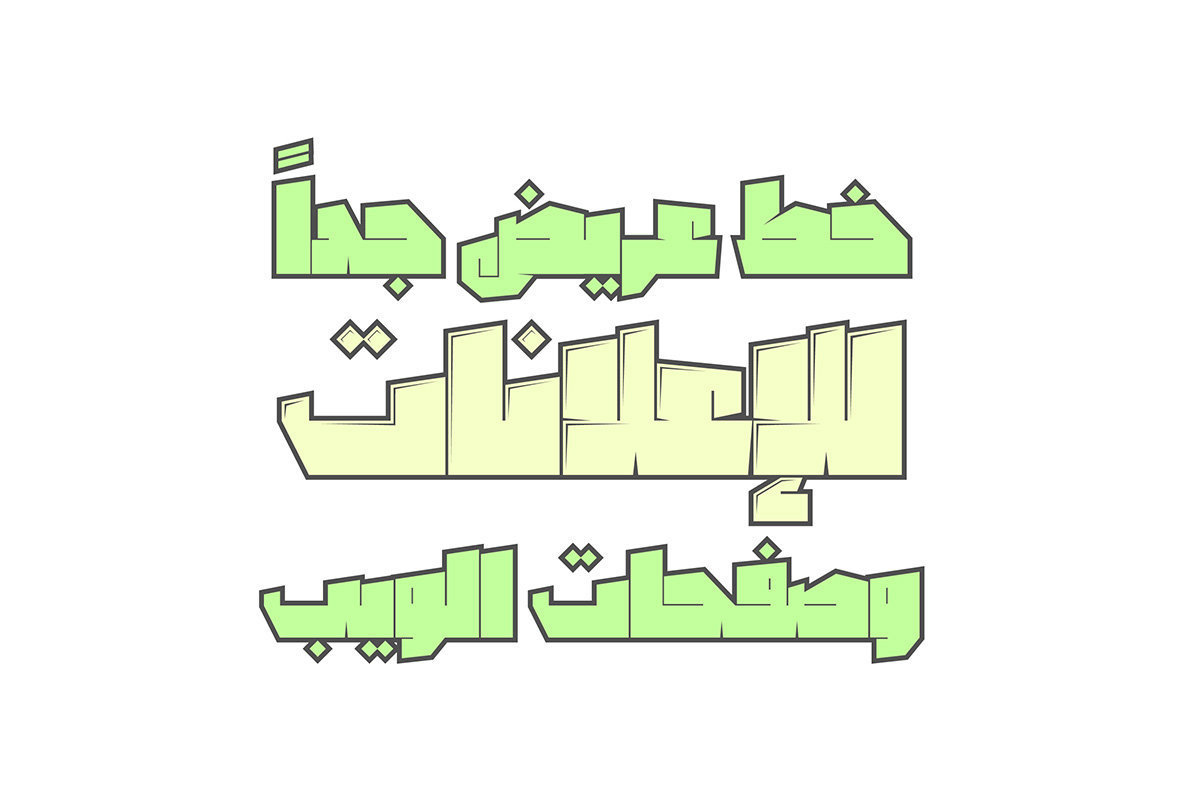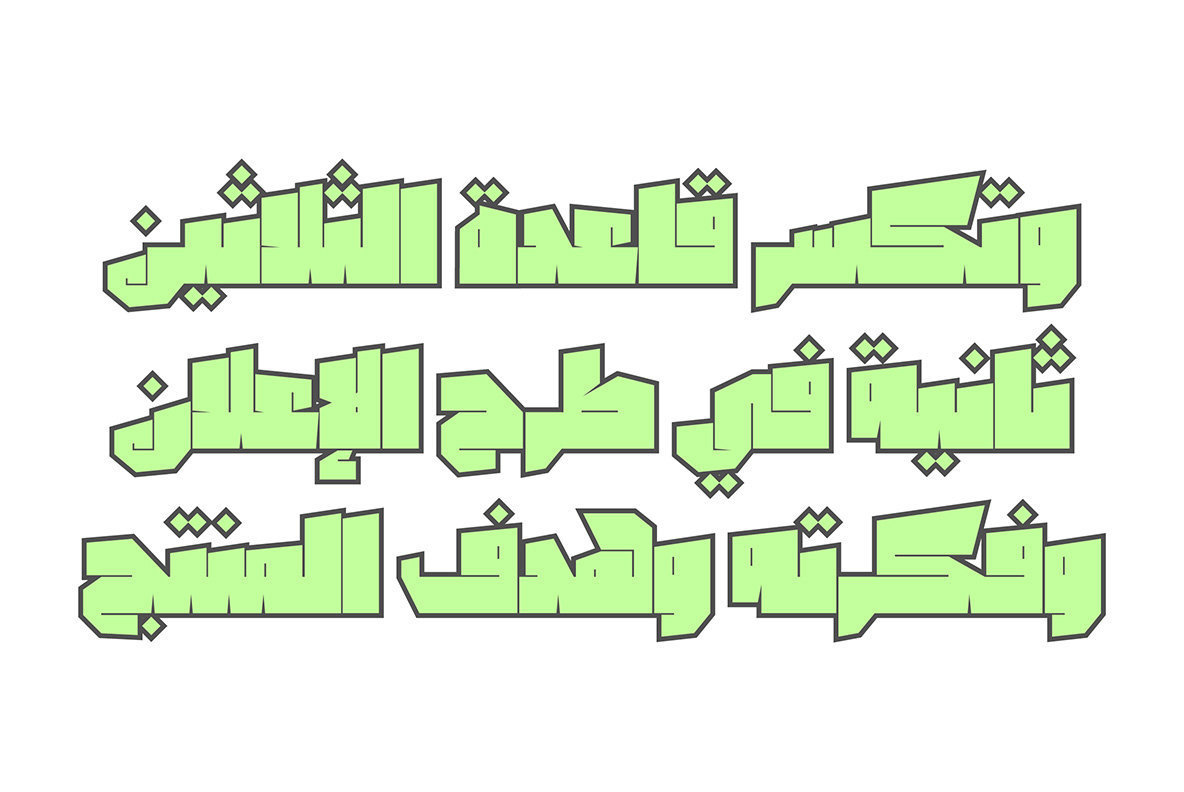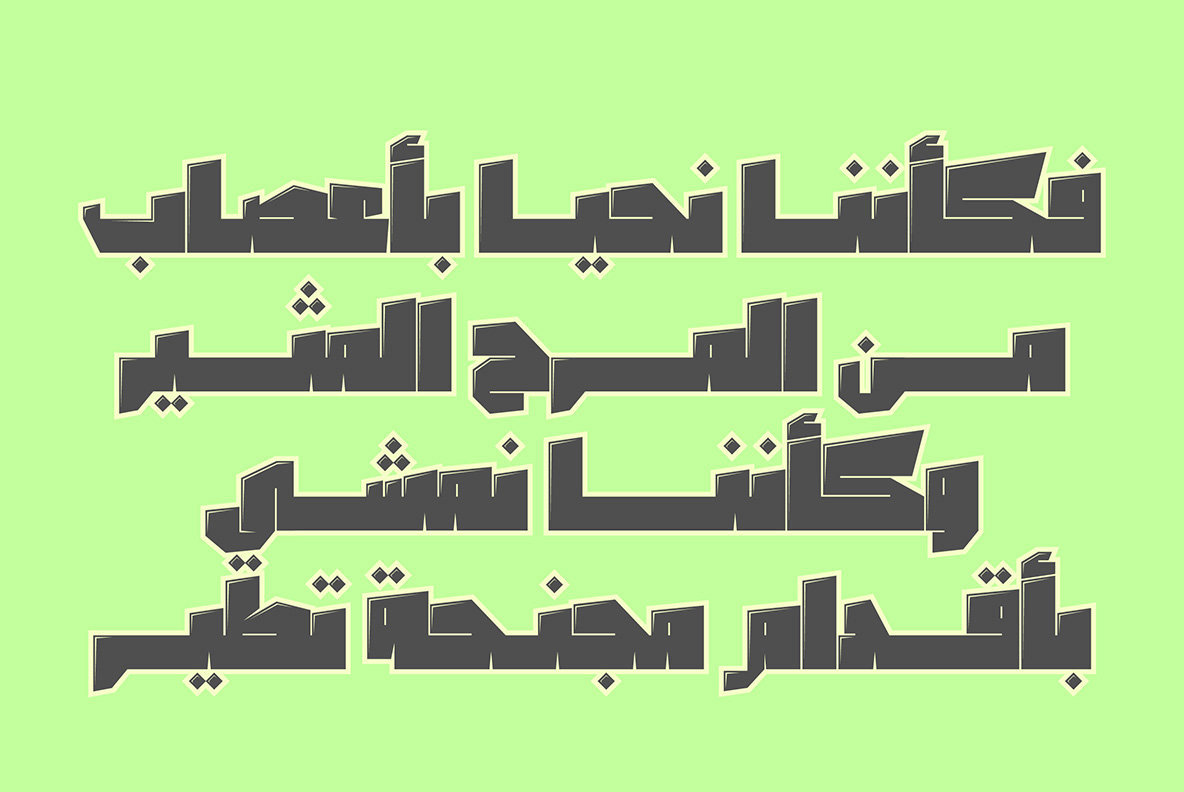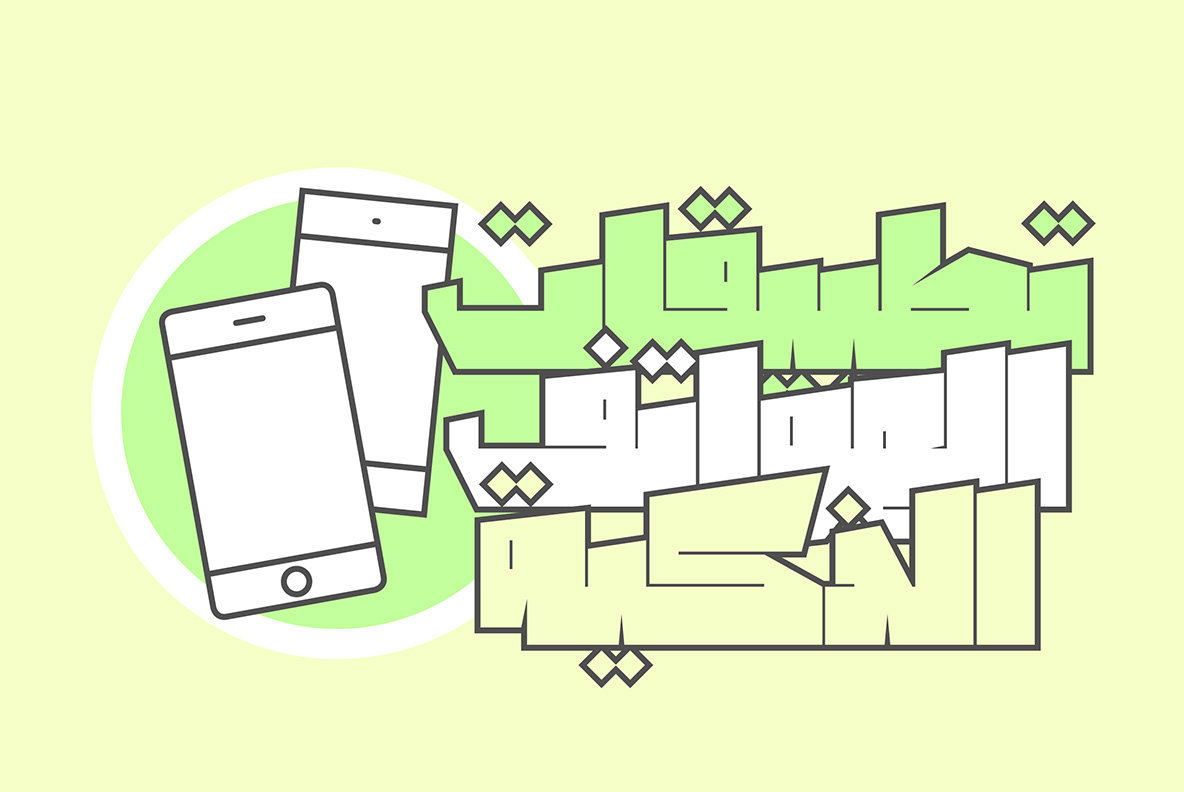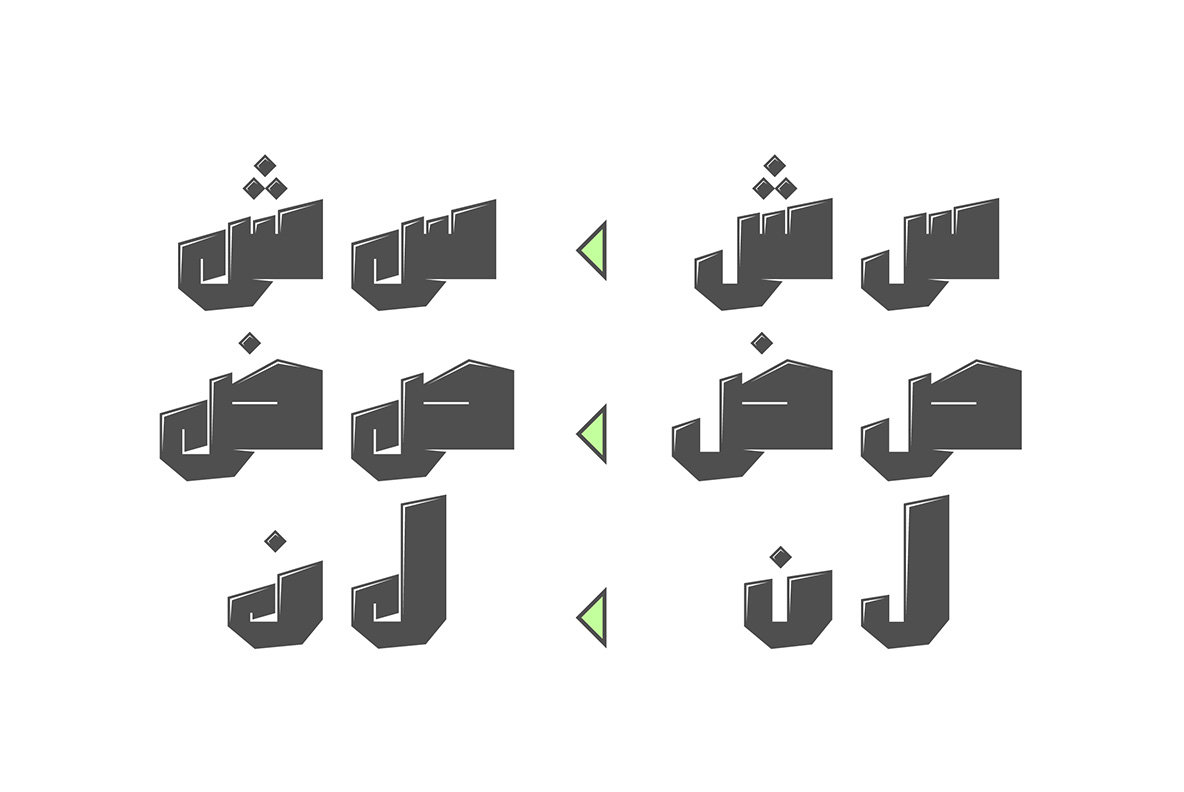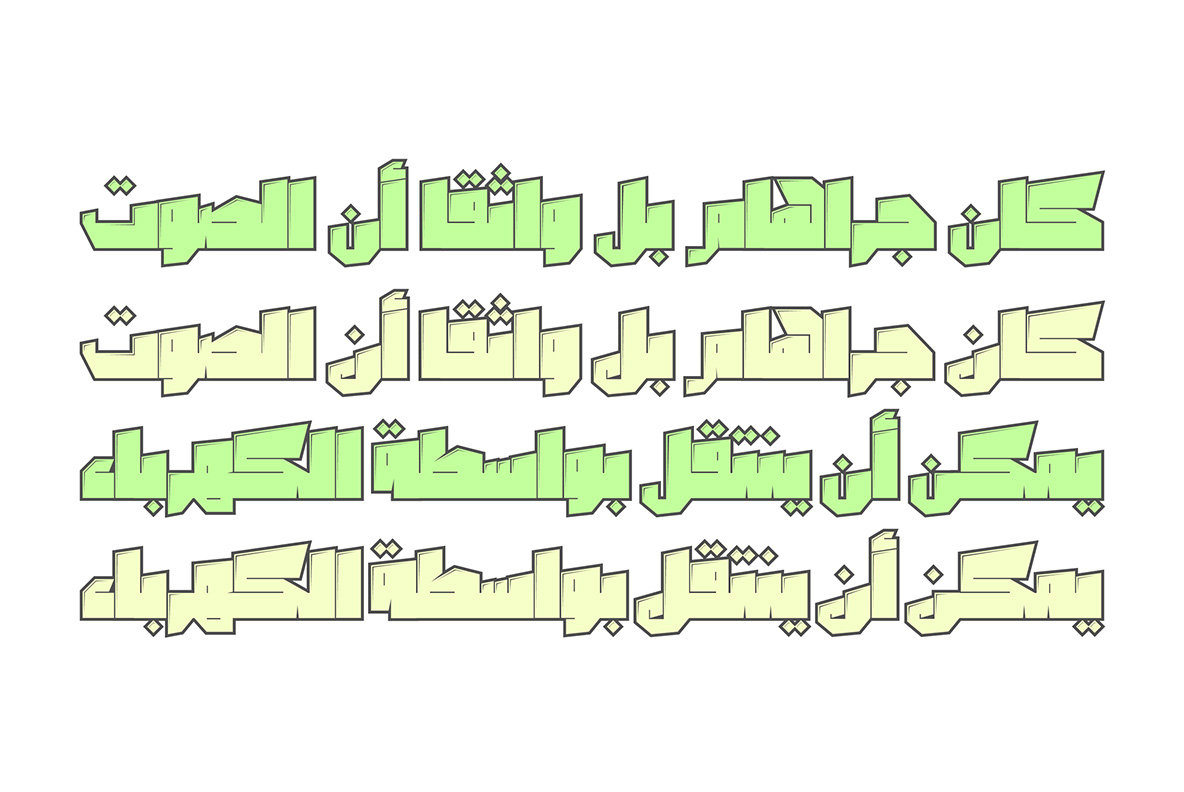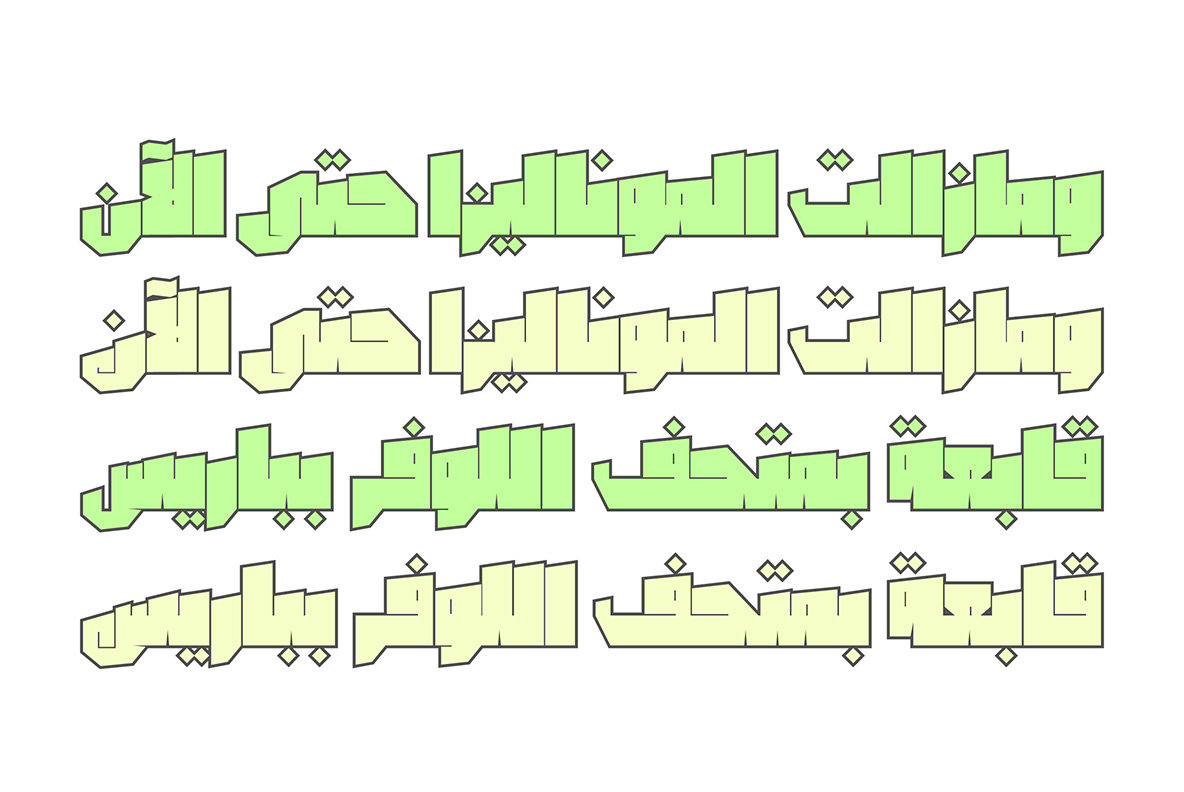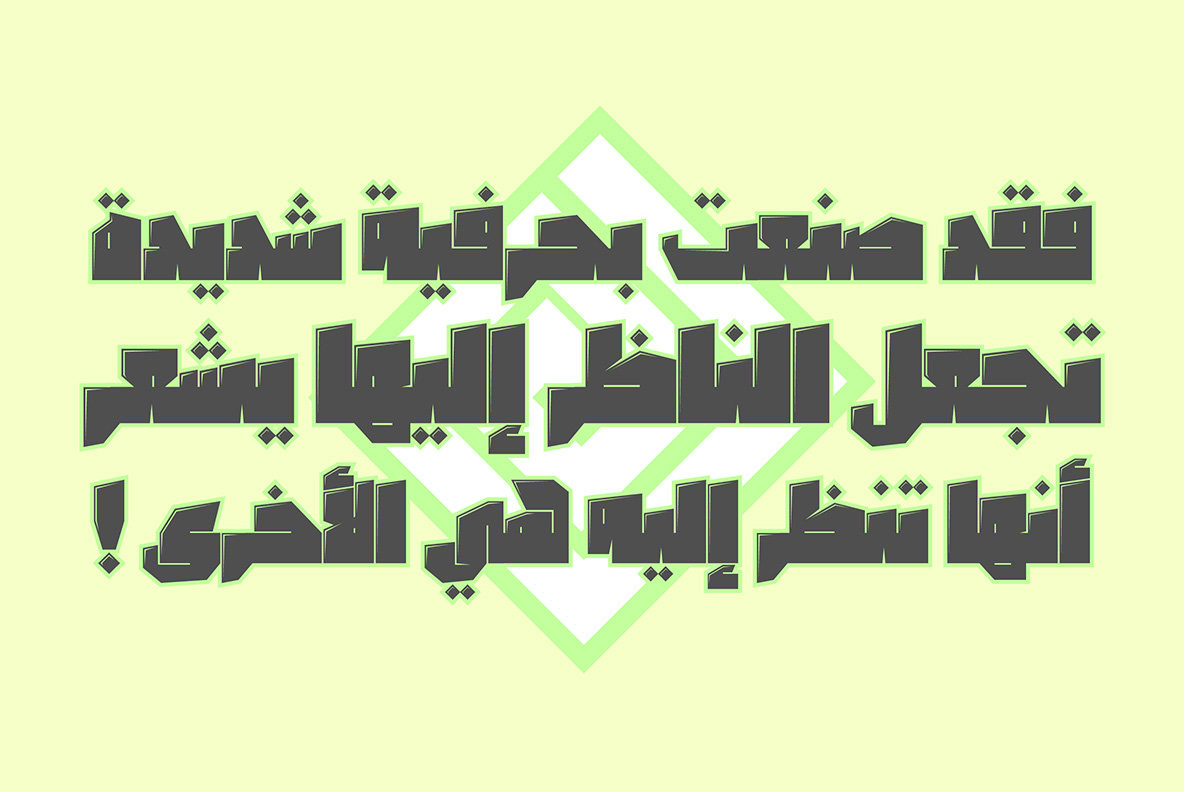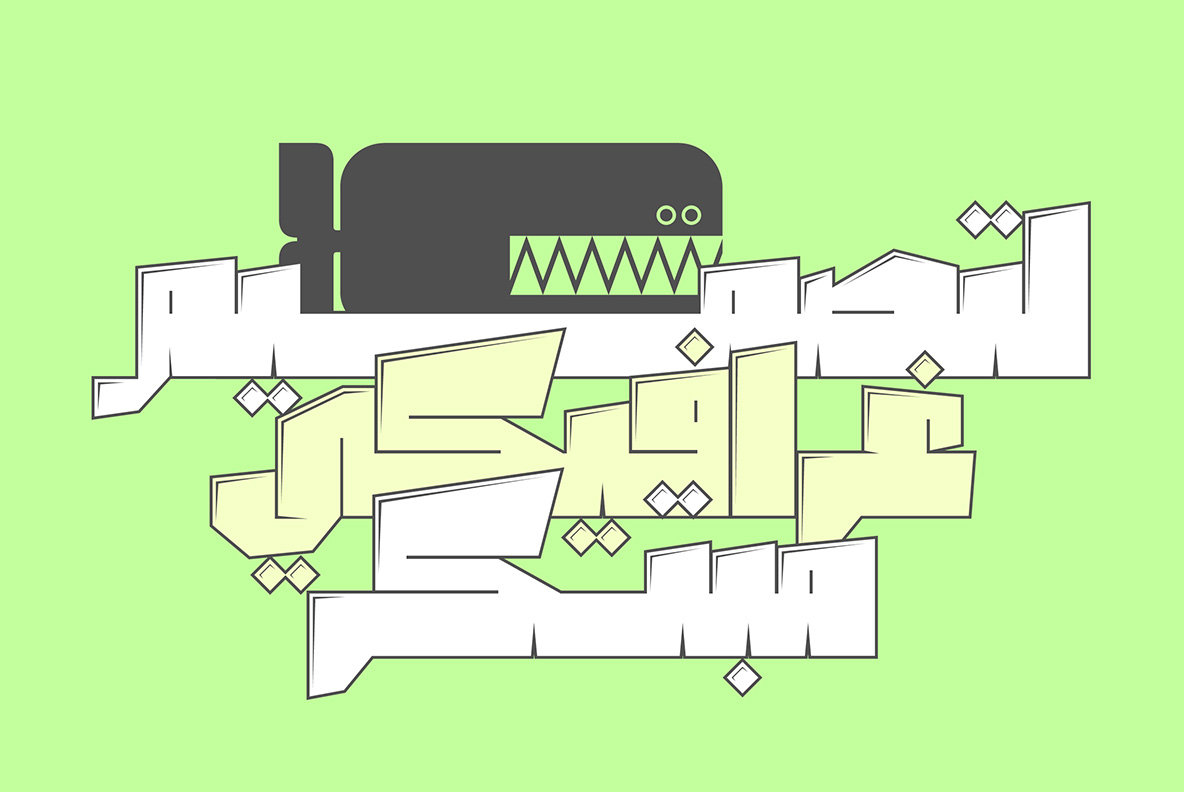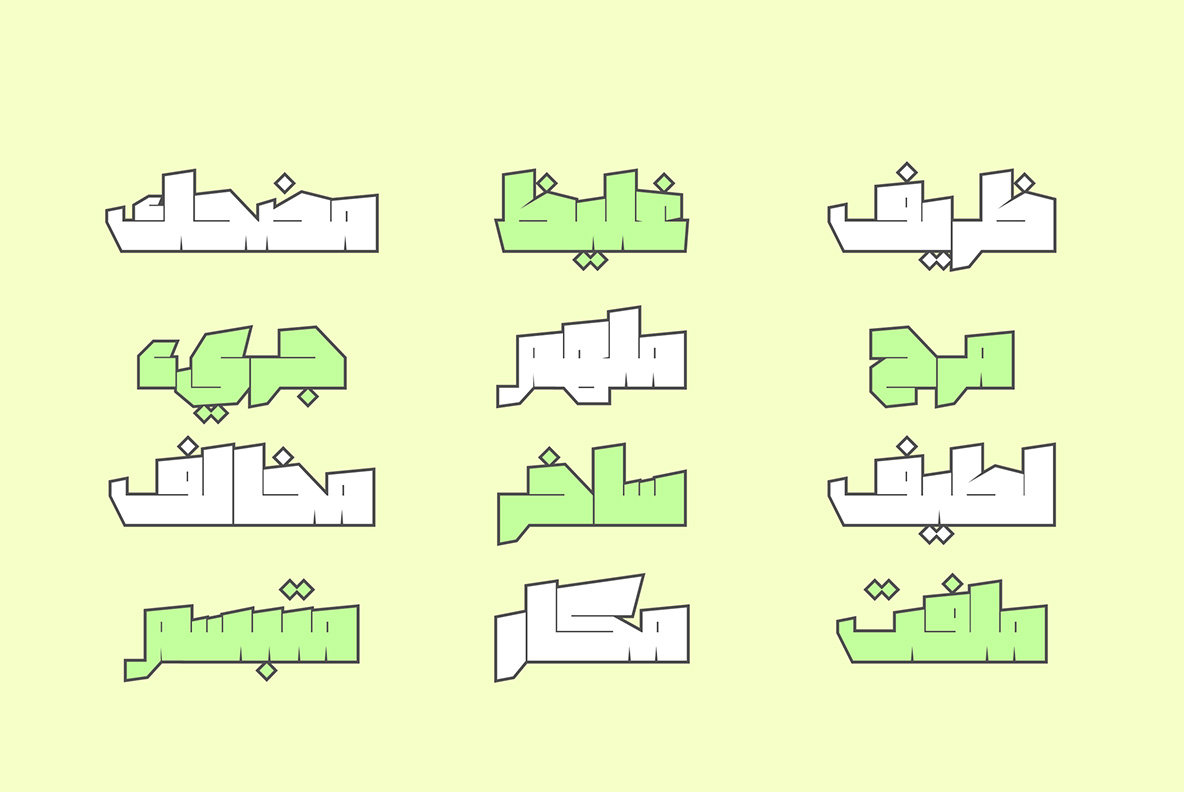
Dahka Font
Dahka Normal
Dahka Embossed
Dahka is a humorous Arabic font that comes in two styles, normal and embossed. It suits various range of display purposes including web design, advertising, branding and mobile applications.